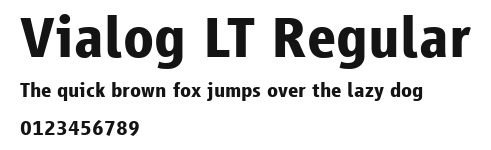
• Font Name: Vialog LT Regular
• Designer: Werner Schneider
About Vialog LT Regular.ttf
Vialog LT Regular.ttf is a modern, elegant sans-serif font designed for ultimate readability and visual harmony. Perfect for branding, headlines, web design, and print materials.